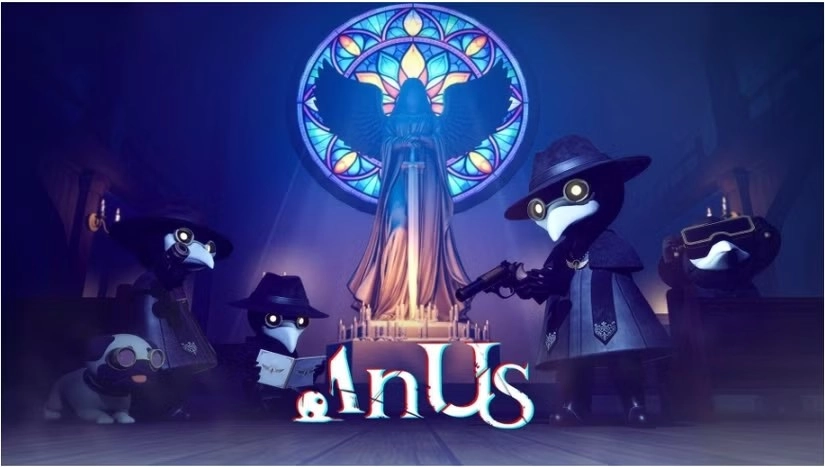
Is this the worst typography cockup of 2026?
Every so often a piece of branding goes wrong in a way that (a) it goes viral, and (b) you think – especially in these AI times – that it's all a hoax. But believe me, this one's real. In fact, at time of writing, you could still go to the source, the listing for In Us on Steam, and see it for yourself.
In Us, in case you didn't know, is a co-op horror game from Engawa Games, an independent Japanese game development studio previously known for its chaotic co-op game Parking Together!.
The multiplayer survival horror title follows a team of exorcists around a village corrupted by demons. Players work together to spot which villagers are secretly monsters in disguise, then exorcise them before things turn nasty.
It all sounds like the sort of game I'd love: part social deduction, part tense atmospheric horror, built for playing with friends.
Better still, it dropped with some deliciously eerie, atmospheric key art. A stained-glass window, candlelight, a robed figure, a gun-toting exorcist crow in a fedora. There's a lot of skill and imagination on show here, and Engawa Games certainly deserved for their new release to go viral. But unfortunately, it did so for all the wrong reasons.
In case the image at the top of this page hasn't loaded, the problem is with the stylised lettering of the title: "In us" looks far more like "Anus". As DualShockers spotted, the effect is unmistakable once you see it, and impossible to unsee afterwards.
Why did it happen?
This isn't the first typographic fail we've seen, and why, you might wonder, does it happen? My guess is that, most of the time, it's a symptom of designers spending hours staring at a logo up close, at high resolution, usually on a big screen. After a while, you stop seeing the letters as letters and start seeing them as shapes to be balanced.
Basically, once you really start digging into the details, your brain stops seeing the big picture. Which – unlikely as it seems – means it's easy to miss what a word looks like to someone glancing at it cold; at thumbnail size, on a phone, for half a second. Stylised display type only makes it worse.
It's all reminiscent of the "Invisible Gorilla" experiment created by researchers Christopher Chabris and Daniel Simons to show that people who are focused on one thing can easily overlook something else. To demonstrate this effect, they created a video of students passing a basketball among each other.
Viewers of the video were asked to count the number of times the players with the white shirts passed the ball. As result, many of them failed to notice a person in a gorilla suit appearing in the centre of the image. And I'll admit it, when I saw the video for the first time, I made that exact mistake myself. (Something my wife, who doesn't miss a trick, will never let me live down.)
I wasn't too surprised, because I'd already spent over 20 years working in print magazines. During which time, I would sometimes fail to spot a massive typo on the cover design we were working on until I'd seen it at least 30 times, because I'd be so obsessed with getting other aspects of the design nailed.
Sometimes (whisper it) these covers actually got printed with a typo - despite having been approved by a dozen other people up the publishing chain. Thankfully none of those errors related to embarrassing body parts. But as the saying goes: there by the grace of God go I.
In other words, enjoying mocking Engawa Games for their typography fail today. But prepare for tomorrow, because it could be your turn next. And watch out for that gorilla!